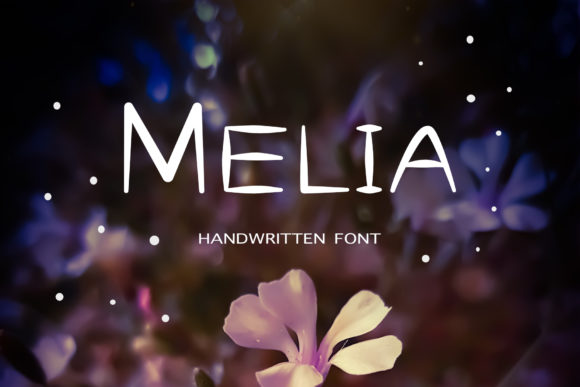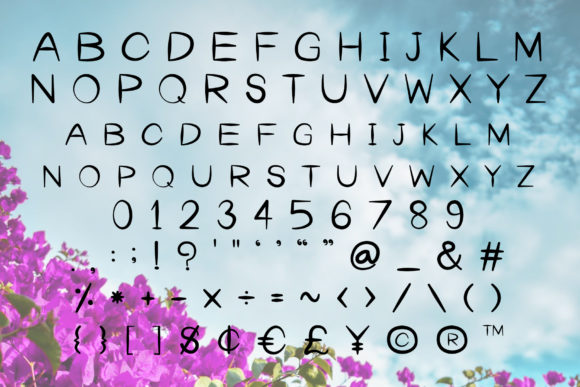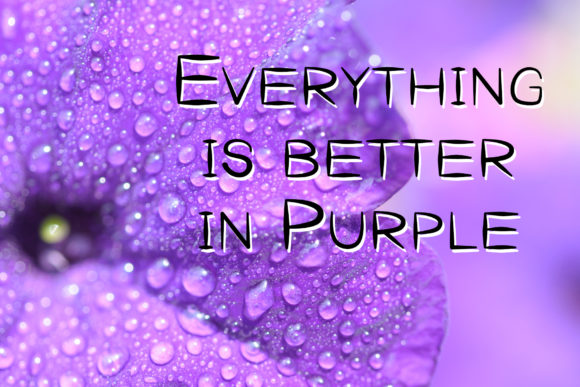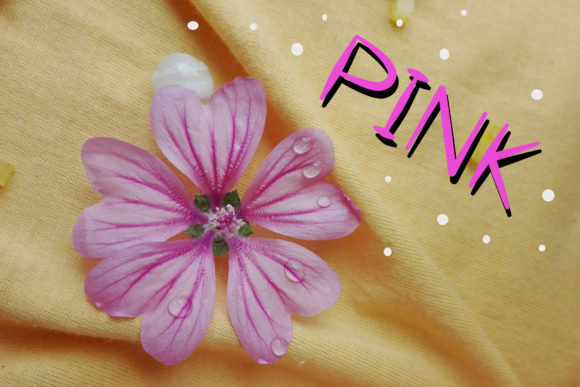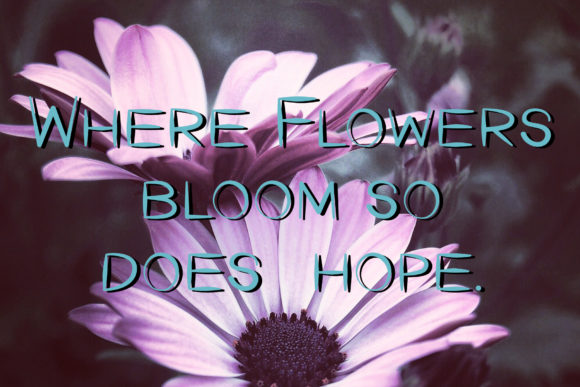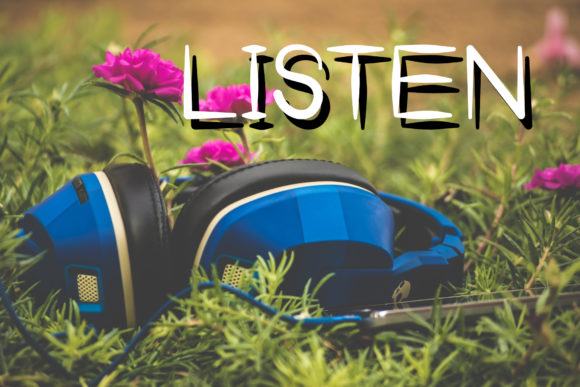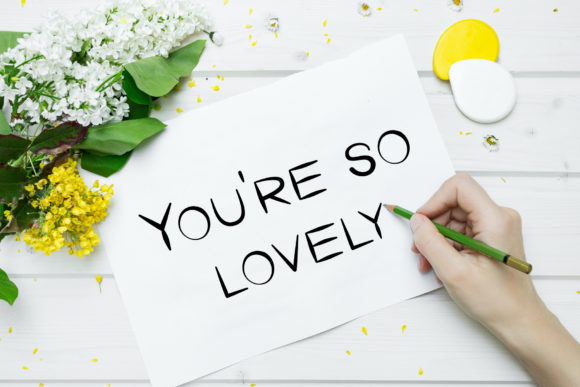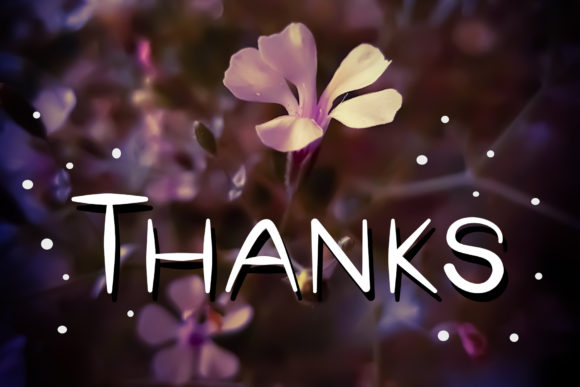
Melia Font
About Melia Font
Melia is sweet and unique handwritten font. It can easily be matched to an incredibly large set of projects, so add it to your creative ideas and notice how it makes them stand out!